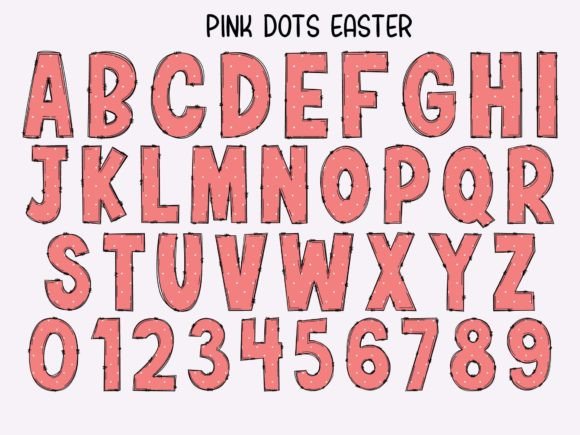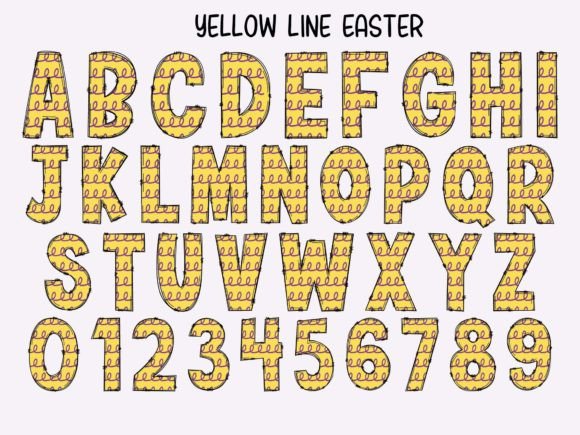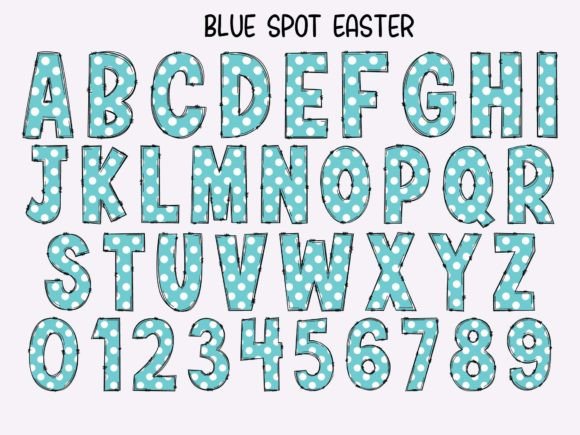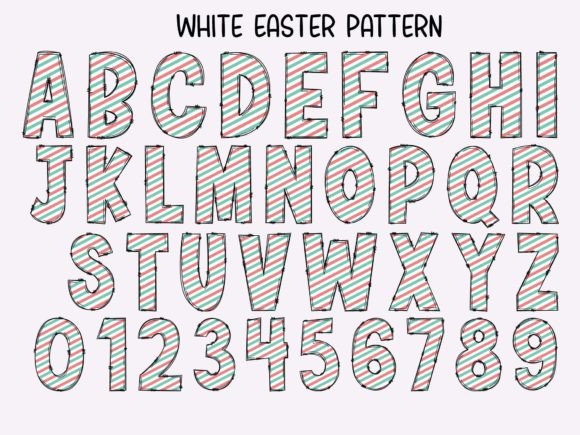
Give Your Designs a Hop of Joy with Easter Font
As a designer, there’s nothing quite like the thrill of bringing a new project to life. You’re brainstorming ideas, sketching out concepts, and finally, you land on the perfect combination of colors and typography. And that’s when it happens – you stumble upon Easter Font, and suddenly, your design is transformed into a vibrant masterpiece.
Easter Font is a dynamic, color font designed to add an extra layer of excitement to your designs. With its wide range of bright colors, you can create eye-catching headlines, logos, and social media graphics that truly stand out. Whether you’re working on a seasonal campaign or just looking to inject some fun into your brand’s visual identity, Easter Font is the perfect tool to have in your arsenal.
Easter Font Key Features
- Font Family: Easter Font is a unique, hand-drawn font family designed to resemble Easter eggs and springtime elements.
- Character Set: Easter Font includes a wide range of characters, including uppercase and lowercase letters, numbers, punctuation marks, and special symbols.
- Unique Characteristics: The font features intricate, hand-drawn designs, with Easter egg-inspired patterns and motifs, making it perfect for spring and Easter-themed projects.
Easter Font Review
I recently had the chance to play around with the Easter Font, and here’s my honest take.
- The Easter Font is a unique and creative take on traditional font styles.
- The designer has done a great job of incorporating Easter-themed elements, such as eggs and bunnies, into the font.
- The font is highly customizable, allowing users to adjust the size, color, and spacing to their liking.
- The Easter Font may not be suitable for all types of projects, particularly those that require a more professional or formal tone.
- The font’s creative elements can sometimes feel overwhelming or distracting, making it difficult to read.
- The font is not optimized for smaller text sizes, which can make it difficult to read at smaller sizes.
Overall, I think the Easter Font is a fun and creative option for projects that require a playful or whimsical touch. However, it may not be the best choice for more formal or professional projects. With some careful planning and consideration, the Easter Font can be a great addition to your design toolkit.
To get the most out of Easter Font, try experimenting with different font sizes, colors, and styles to create a unique and eye-catching design. You can also use Easter Font in combination with other festive graphics and elements to create a cohesive look.
Easter Font is perfect for creating Easter-themed designs, such as:
- Easter cards and invitations
- Holiday party decorations and signage
- Easter egg decorating templates